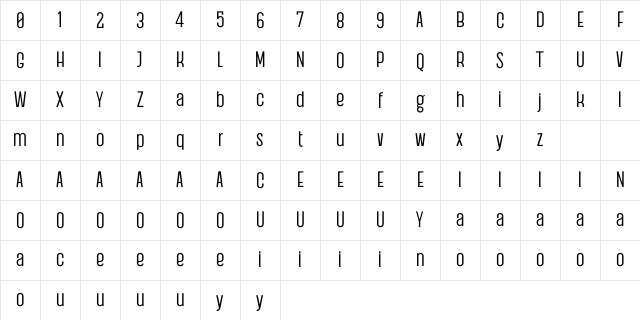
Hypop FREE
Foundry: FactoryType
Designer: Andreas Kosikin
Design Context for Hypop
Hypop is a composed and adaptable typeface that performs quietly and consistently across a wide range of design contexts.